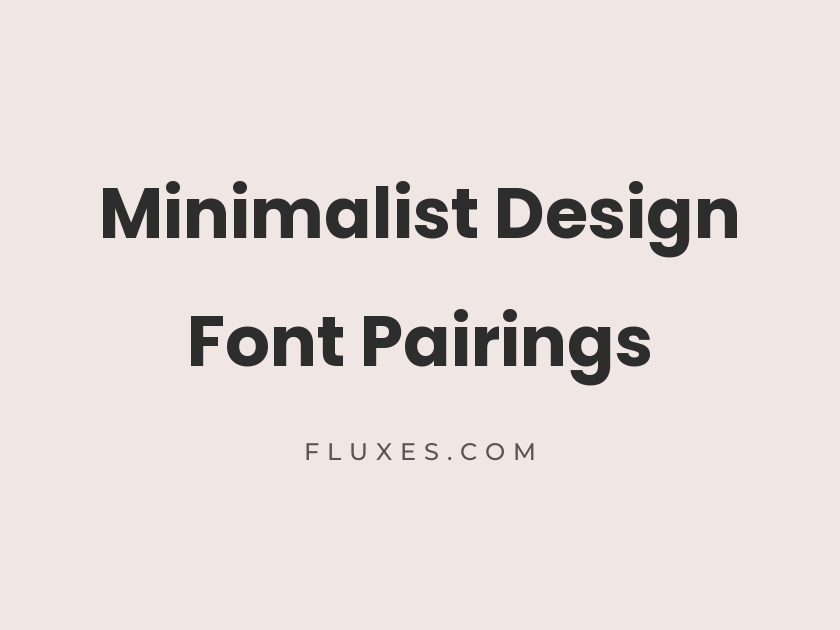
34 Best Font Pairings for Minimalist Design
Minimalist design lives or dies on restraint, and font pairing is where that restraint either pays off or collapses into blandness. The goal is never to find two fonts that are merely inoffensive together; it is to find two that share enough structural logic to feel intentional while offering just enough contrast to create hierarchy. The combinations below cover geometric sans, humanist sans, transitional serifs, and a few monospace accents, all genuinely free on Google Fonts and suited to clean, uncluttered layouts.
Poppins + Karla
Design With Less
A geometric heading softened by a warm, humanist body text underneath.
Poppins brings crisp, circular geometry to headlines, while Karla’s slightly quirky, humanist details keep long paragraphs from feeling mechanical. The contrast in personality, one constructed, one hand-adjusted, gives a minimalist layout warmth without adding visual noise.
Space Grotesk + Inter
Structure Over Decoration
Both fonts share a grotesk skeleton, so the transition from heading to body feels seamless.
These two come from the same typographic family tree, so letterforms echo each other in width and rhythm even though only one is doing the heavy lifting at large sizes. This is the pairing to reach for on product sites and dashboards where consistency matters more than flourish.
Fraunces + Work Sans
Warmth in the Details
A soft display serif paired with a neutral sans for calm, readable paragraphs.
Fraunces has just enough old-style character to add personality to an otherwise stripped-down page, and Work Sans stays out of the way as body copy. It suits editorial or portfolio sites that want minimalism with a touch of craft.
Archivo Black + Archivo
Bold Type, Clean Layout
Same family, different weights, so the pairing is guaranteed to feel unified.
Superfamily pairings remove the guesswork entirely: Archivo Black and Archivo share proportions and spacing by design. It is a dependable choice when you want strong hierarchy without introducing a second typeface’s quirks.
DM Serif Display + DM Sans
Understated Elegance
A companion serif and sans built to sit together from the start.
DM Serif Display and DM Sans were designed as a matched set, sharing x-height and general proportion despite their different structures. That built-in harmony makes this one of the safest font combinations for minimalist branding.
Bodoni Moda + Nunito Sans
High Contrast, Low Noise
Sharp serif contrast balanced by a rounded, unobtrusive sans for body text.
Bodoni Moda’s thin hairlines and dramatic stroke contrast give headlines a fashion-editorial edge, while Nunito Sans keeps paragraphs soft and easy to read. This works well for beauty, fashion, or lifestyle brands going for minimal-but-striking.
Libre Franklin + Source Serif 4
Direct and Uncomplicated
A grotesk heading paired with a text-optimized serif built for long reading.
Libre Franklin’s straightforward, American Gothic feel anchors the page, and Source Serif 4 was engineered specifically for comfortable reading at small sizes. Together they suit documentation, long-form articles, and minimal blogs.
Sora + Mulish
Clean Lines, Clear Voice
Two low-contrast sans fonts with compatible x-heights and calm proportions.
Sora’s rounded terminals give it a friendly edge at display sizes, and Mulish disappears politely into body copy. Their similar x-heights mean the page reads evenly from headline to footer.
Cormorant + Jost
Refined Simplicity
A delicate serif heading against a geometric sans body for quiet contrast.
Cormorant’s tall, narrow letterforms add sophistication to short headlines without shouting, and Jost’s Futura-inspired geometry keeps the rest of the page tidy and modern. It is a strong match for galleries, studios, and personal portfolios.
Playfair Display + Karla
Classic Meets Minimal
A dramatic serif headline settled by a plain, friendly sans for the text.
Playfair Display carries enough drama to act as the single decorative element on an otherwise spare page, and Karla’s understated personality never competes with it. This pairing has become a go-to for minimalist wedding and editorial sites for good reason.
Manrope + Literata
Efficient by Design
A modern grotesk heading with a warm serif built for on-screen reading.
Manrope’s tight spacing and slightly squared curves feel current without being trendy, and Literata was built by Google specifically for legibility in digital reading. The combination suits apps and content platforms that need both style and stamina.
Outfit + Inter
Simple, Not Plain
A geometric display sans paired with the internet's most dependable text font.
Outfit’s rounded geometry gives headlines a soft, contemporary feel, and Inter’s near-invisible neutrality lets that headline do the talking. Reach for this pairing on SaaS landing pages and app marketing sites.
Match x-heights before anything else. Two fonts can look wildly different in style and still feel unified if their lowercase letters sit at a similar visual height on the page.
Let contrast do the work of hierarchy instead of ornament. A single well-chosen weight or size jump between heading and body is often more effective than adding rules, boxes, or extra colors.
When in doubt, try a superfamily pairing. Fonts designed together, like Archivo and Archivo Black or the IBM Plex family, guarantee structural harmony with zero guesswork.